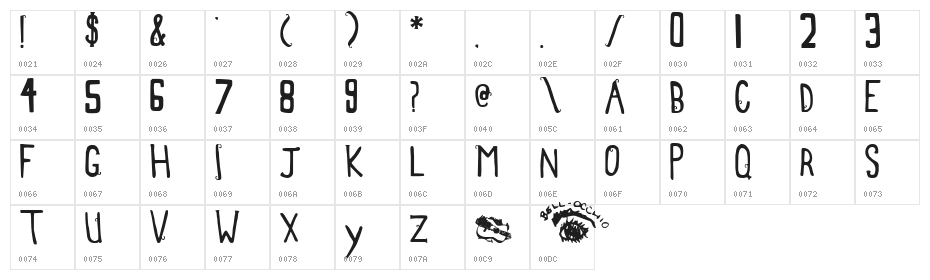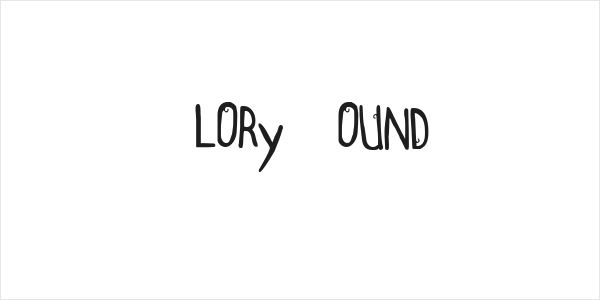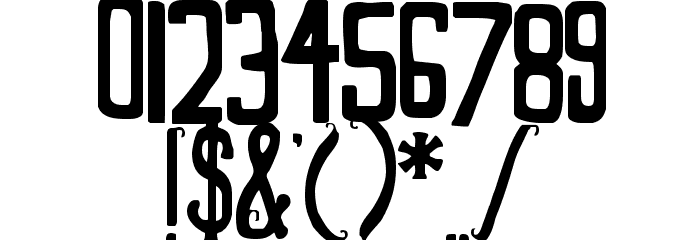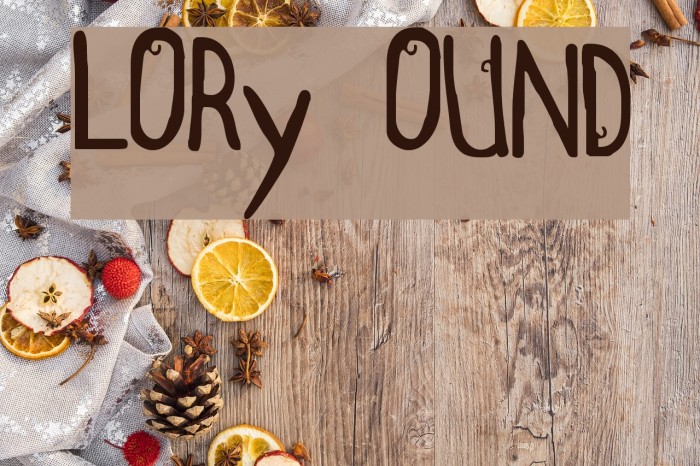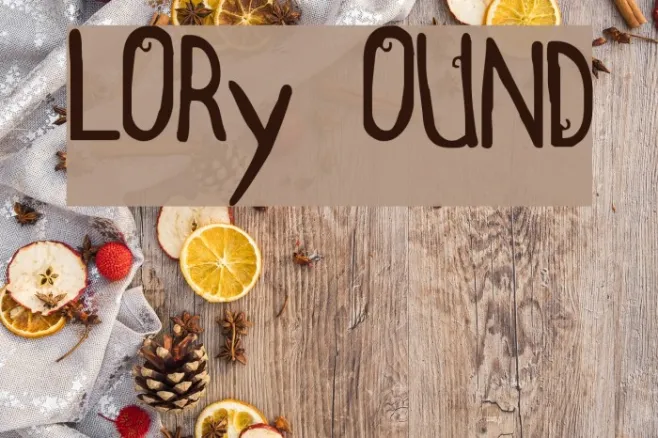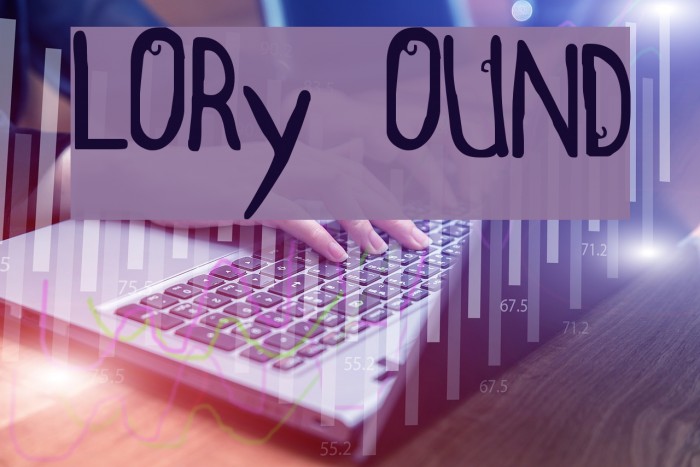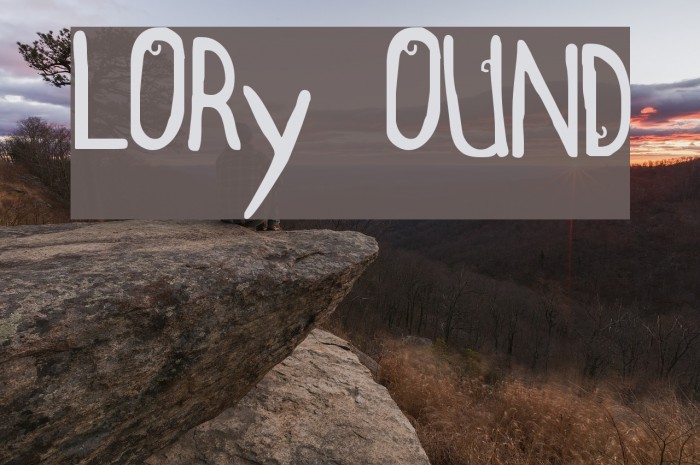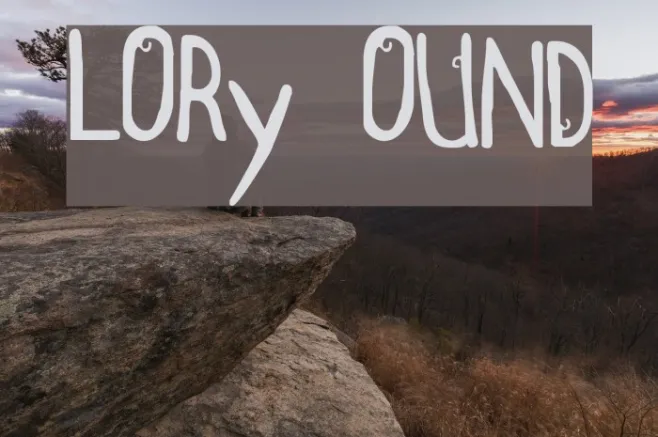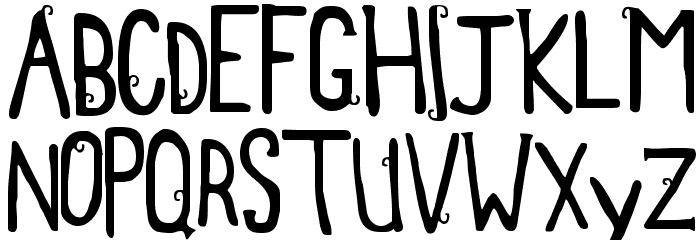
Glory Bound Font
Glory Bound Description
This font features a playful and whimsical design with a hand-drawn aesthetic. The characters are slightly irregular, giving it a unique and artistic feel. The uppercase letters are bold and prominent, while the lowercase letters maintain a consistent style with a slightly narrower form. Numbers are distinct and easy to read, with a quirky charm that matches the overall theme. Special characters are creatively designed, adding to the font's decorative appeal. The strokes are consistent in thickness, providing a balanced look across all characters.
| Proposed Projects | Ideal for children's books, creative posters, playful branding, and artistic projects. |